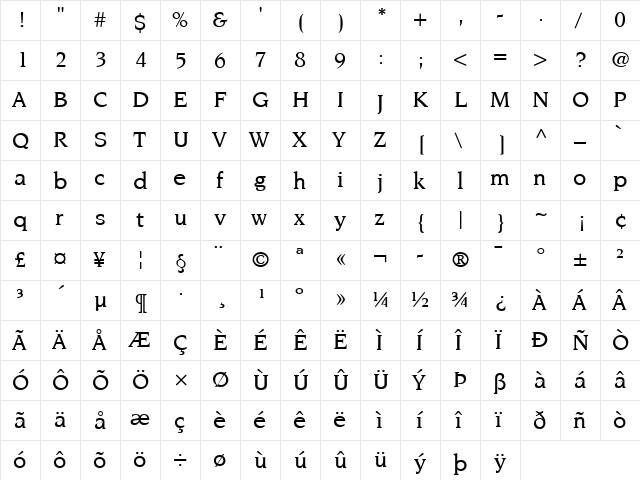
Novarese LT Medium Regular
Design Context for Novarese LT Medium Typeface
Novarese LT Medium takes a measured approach to typography — its balanced proportions and neutral character make it a reliable workhorse for both digital and print work. Its slender proportions lend an understated elegance to any composition.